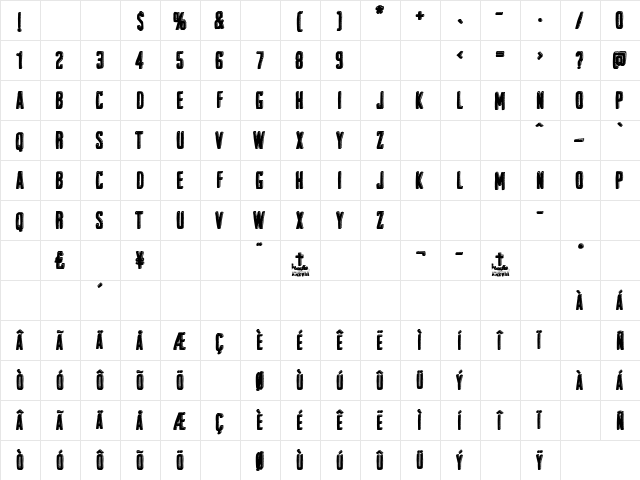
the Gallery Regular
Design Context for the Gallery Typeface
the Gallery is a composed and adaptable typeface that performs quietly and consistently across a wide range of design contexts.